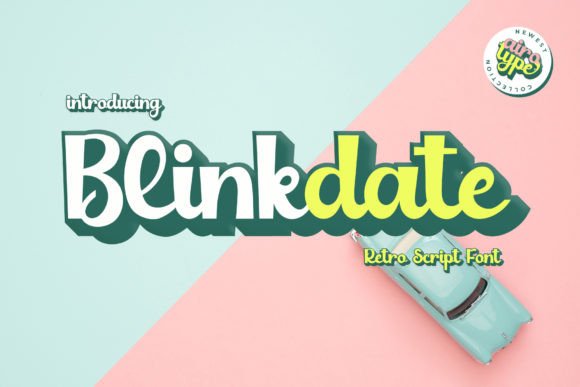
Introducing Blinkdate Font: Elevate Your Designs with Elegance and Boldness
In the world of typography, fonts play a crucial role in conveying the tone and aesthetic of a design. For designers and crafters looking to make a statement, Blinkdate Font is an exceptional choice. This elegant and bold handwritten font is making waves in the design community with its perfect blend of trendiness and versatility.
What Makes Blinkdate Font Stand Out?
Blinkdate Font is not just another addition to the vast library of typefaces available today. It boasts several features that set it apart:
- Elegant and Bold: Blinkdate strikes the perfect balance between elegance and boldness. Its handwritten style exudes a sense of sophistication and modernity, making it ideal for projects that demand a high level of visual appeal.
- PUA Encoded: Being PUA (Private Use Area) encoded is a significant advantage of Blinkdate Font. This encoding allows users to access all the glyphs and swashes easily, offering extensive flexibility in customizing and fine-tuning designs.
- Versatile Style: The font’s incredibly versatile style means it can be used across a wide range of projects. Whether you’re working on a branding campaign, a website design, or crafting unique digital content, Blinkdate adapts seamlessly, ensuring your designs stand out.
Applications of Blinkdate Font
The versatility of Blinkdate Font makes it suitable for various applications, including:
- Branding and Logos: Create a lasting impression with a bold and elegant logo that captures the essence of your brand. Blinkdate’s unique style ensures your logo stands out in any industry.
- Website Design: Enhance the user experience of your website with a font that is both readable and visually appealing. Blinkdate’s elegance shines through on digital screens, making it perfect for web design.
- Digital Marketing Materials: From social media posts to email newsletters, Blinkdate Font can elevate your digital marketing materials, making them more engaging and professional.
- Crafting and DIY Projects: For crafters and DIY enthusiasts, Blinkdate Font can add a personal touch to handmade cards, invitations, and other creative projects.
Tips for Using Blinkdate Font Effectively
To maximize the impact of Blinkdate Font in your designs, consider the following tips:
- Mix and Match: Don’t be afraid to experiment with different weights and styles of Blinkdate to create visual hierarchy and interest in your designs.
- Pair with Complementary Fonts: When pairing Blinkdate with other fonts, choose typefaces that complement its elegance and boldness. A simple sans-serif font can create a beautiful contrast.
- Utilize Swashes and Glyphs: Take full advantage of Blinkdate’s PUA encoding by incorporating swashes and glyphs into your designs. These elements can add a touch of sophistication and uniqueness.
Blinkdate Font is a game-changer for designers and crafters looking to infuse their projects with elegance, boldness, and trendiness. Its PUA encoding, versatile style, and wide range of applications make it an invaluable asset in any creative toolkit. Whether you’re aiming to create spectacular designs for digital platforms or crafting unique handmade projects, Blinkdate Font is sure to exceed your expectations. So, why wait? Fall in love with Blinkdate’s style and let it elevate your designs to new heights!